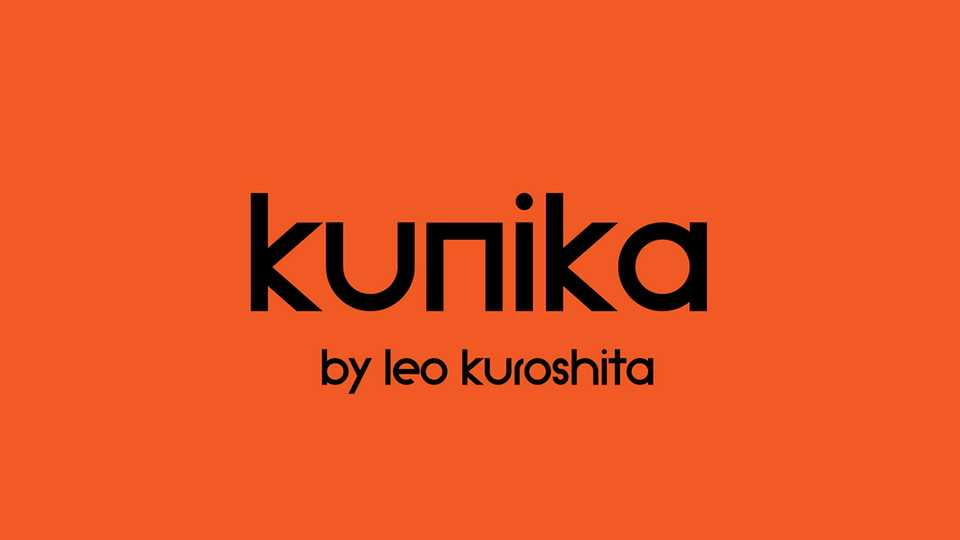
Download Kunika font, a neo-geometric typeface inspired by Futura and ITC AvantGarde Gothic. Kunika is good for posters, headlines, titles, logos, etc. You can choose ligatures and alternate characters with Opentype.
Designer: Leo Kuroshita